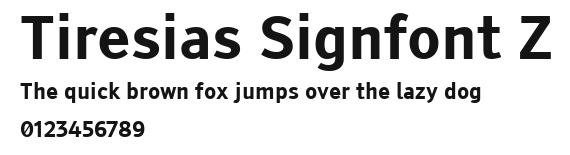
Tiresias Signfont Z Preview
• Font Name: Tiresias Signfont Z
• Full Font Name: Tiresias Signfont Z
About Tiresias Signfont Z.ttf
Tiresias Signfont Z.ttf is a modern, elegant sans-serif font designed for ultimate readability and visual harmony. Perfect for branding, headlines, web design, and print materials.